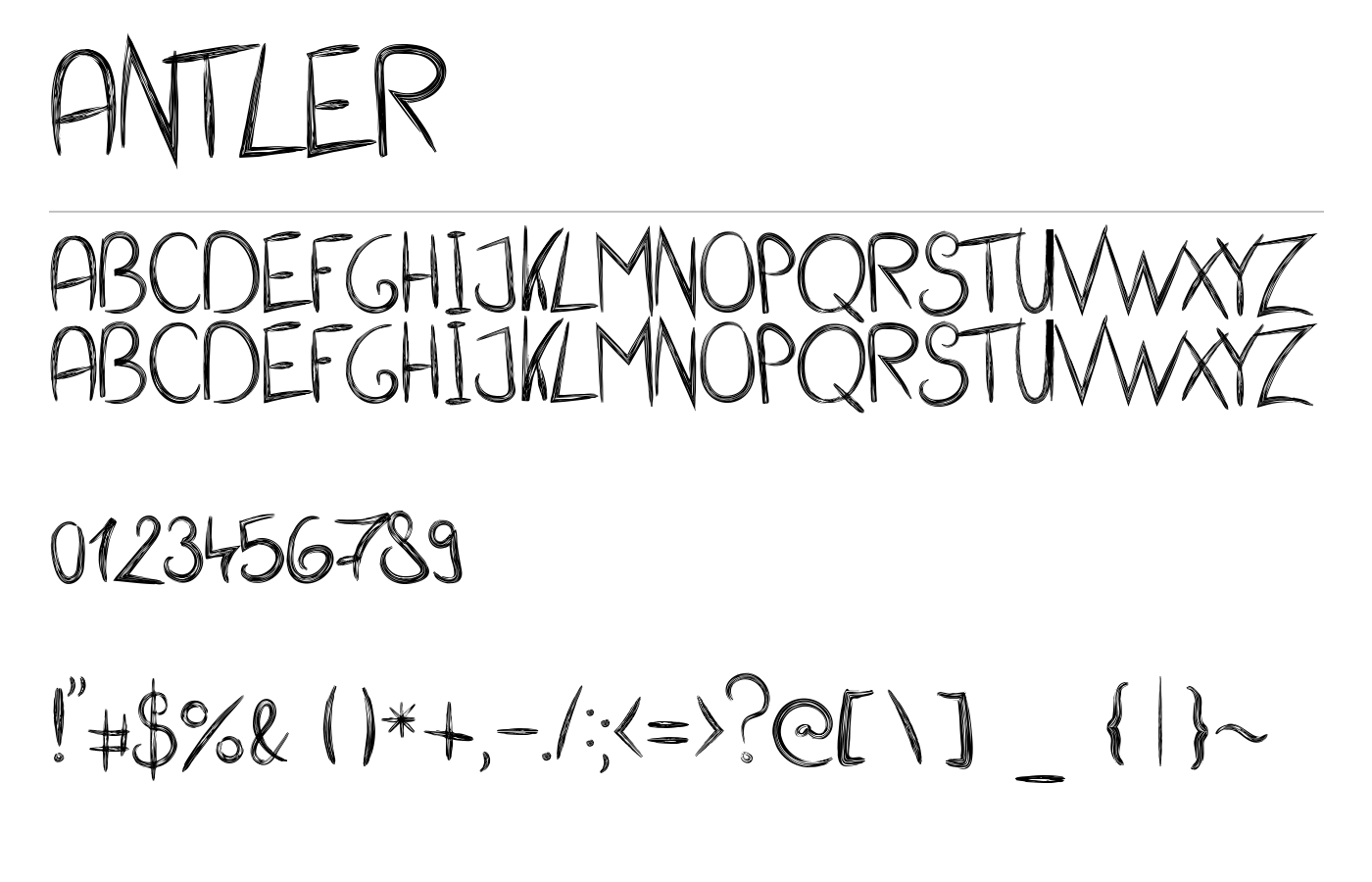
Antler is a playful and quirky sans serif font with a hand-drawn, sketch-like style that gives it a lively and informal personality. Its tall, narrow letters with uneven strokes create an energetic and whimsical feel, making it ideal for creative projects, casual branding, and fun headlines. This font works well where a unique, artistic touch is needed to stand out with a friendly and approachable vibe.
Antler Font
About Antler Font